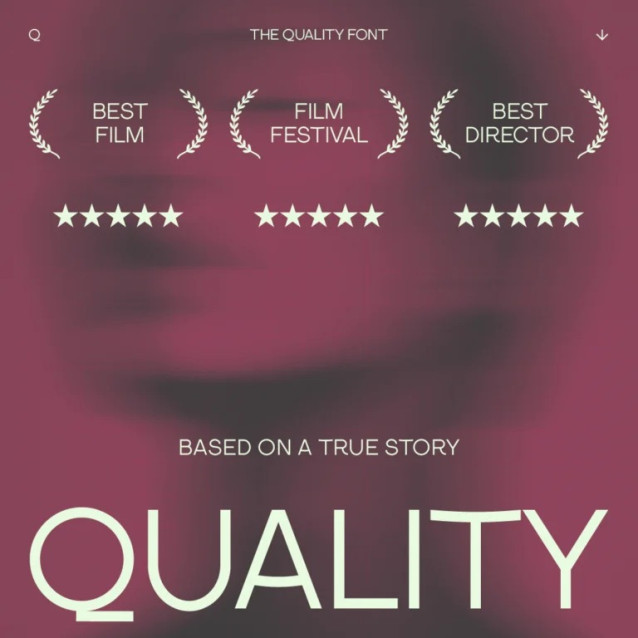
The Quality Typeface
The Quality Typeface – Make a bold statement with our newest sans-serif font. With clean lines and a modern appeal, this font is sure to grab attention and leave a lasting impression. Perfect for headlines, logos, and any design that demands attention. It’s both functional and stylish, making it a versatile choice for a wide range of design projects.